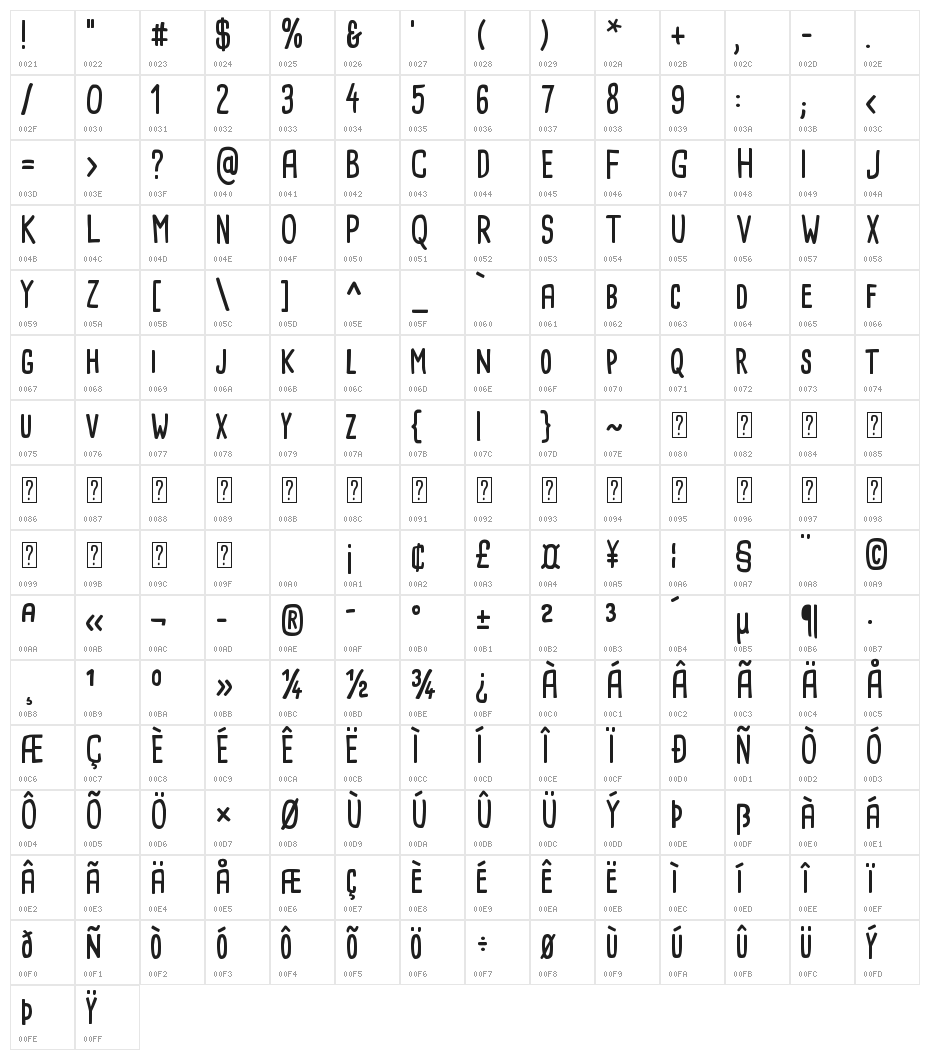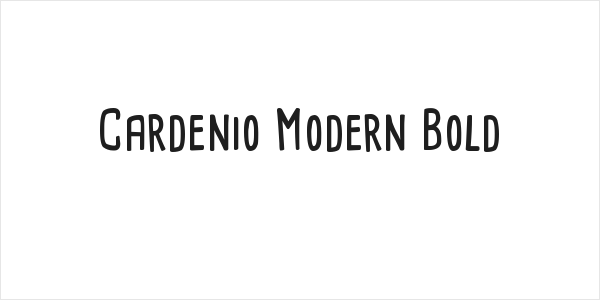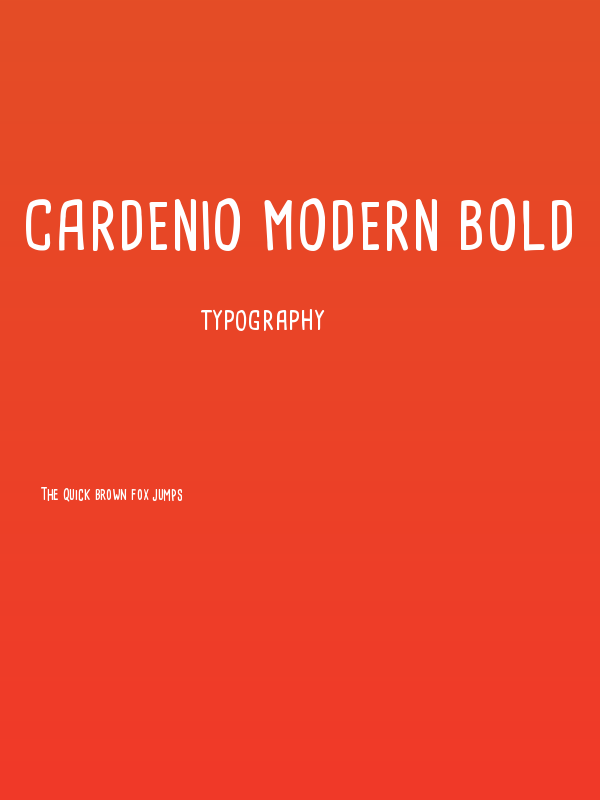
Cardenio Modern Bold Font
Cardenio Modern Bold Description
This font features a bold and modern aesthetic with a playful touch. The characters are rounded and have a slightly condensed appearance, giving them a friendly and approachable feel. The uppercase and lowercase letters maintain a consistent style, with smooth curves and a uniform stroke width. The numerals and special characters are designed to match the overall style, ensuring a cohesive look across all text. This font is versatile and can be used in various design projects that require a contemporary and lively typeface.
| Proposed Projects | Ideal for branding, packaging, children's books, and playful advertising campaigns. |